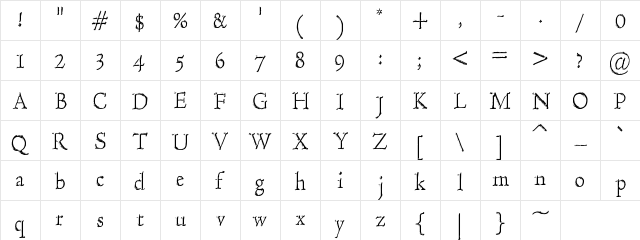
Hultog Engraved Regular
| Designer | S. John Ross |
Design Context for Hultog Engraved Typeface
Hultog Engraved is built around its visual character rather than neutral utility — its distinctive forms are designed to make an impression at display sizes.
Font Pairing: Pair with a clean neutral sans-serif for body copy to let Hultog Engraved's character lead without overwhelming the composition.
Pro Tip: Treat Hultog Engraved as the centrepiece of your typographic hierarchy. One strong heading set in a decorative face can carry an entire layout.